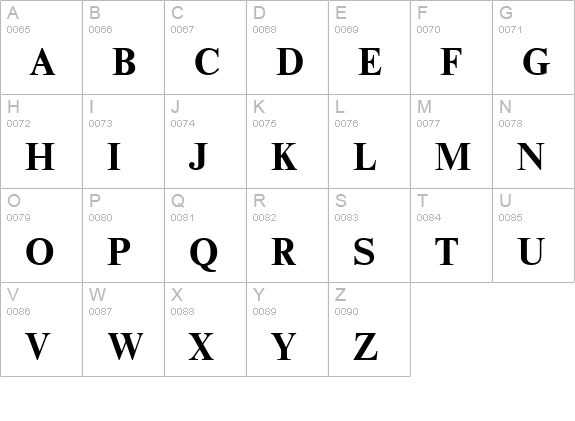
NimbusRomD Bold is a strong, high-contrast variant in the NimbusRomD typeface family \xE2\x80\x94 well suited to headlines, attention-grabbing titles, and strong calls-to-action.
NimbusRomD Bold font is a striking and versatile typeface that exudes confidence and modernity. With its bold and commanding presence, this font is perfect for making a bold statement in your designs. The sleek lines and strong curves of NimbusRomD Bold make it ideal for headlines, posters, and branding projects that demand attention. What's even better is that NimbusRomD Bold is available for free download at FontsMarket.com. You can easily enhance your designs with this powerful font without having to spend a penny. Whether you're designing a logo, creating a poster, or crafting a website, NimbusRomD Bold is sure to make a lasting impression. Download it now and elevate your designs with this stunning typeface.